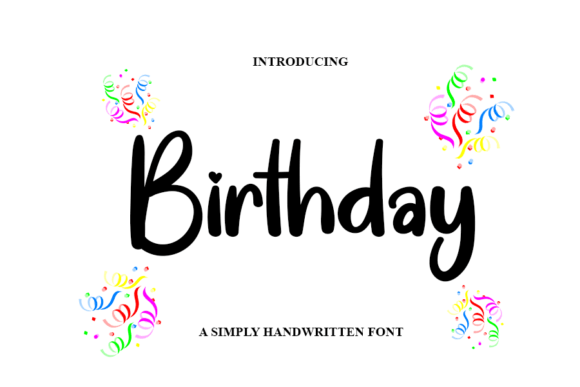
Introducing Birthday Font: The Ultimate Celebration Companion
Are you tired of using the same old fonts for your birthday designs and crafts? Look no further! Birthday Font is here to revolutionize the way you create celebratory content. This cool and modern handwritten font is perfect for crafts, digital design, presentations, and making greeting cards. Its versatility and charm make it an excellent addition to any designer’s or crafter’s toolkit.
The Birth of a New Favorite Font
Birthday Font is more than just a typeface; it’s an experience. Its unique, handwritten style adds a personal touch to any project, making it perfect for special occasions like birthdays, anniversaries, and more. The font’s modern and cool vibe ensures that your designs stand out from the crowd, leaving a lasting impression on your audience.
Endless Possibilities with Birthday Font
One of the best things about Birthday Font is its incredible versatility. Whether you’re a designer, crafter, or DIY enthusiast, this font can be used in a variety of projects, including:
• Crafts: Add a personal touch to your handmade crafts, such as party decorations, gift tags, and DIY cards.
• Digital Design: Use Birthday Font in your digital projects, like social media graphics, blog posts, and email newsletters.
• Presentations: Make your presentations more engaging and celebratory with this unique font.
• Greeting Cards: Create stunning birthday cards, invitations, and thank-you cards that will leave a lasting impression.
Why Choose Birthday Font?
So, what sets Birthday Font apart from other fonts? Here are just a few reasons why it’s about to become your go-to font:
• Unique Style: Birthday Font boasts a distinctive, handwritten style that adds a touch of personality to your designs.
• Easy to Read: The font is clear and legible, making it perfect for both digital and print projects.
• Highly Versatile: Use Birthday Font in a wide range of projects, from crafts to digital design.
• Modern and Cool: The font’s modern vibe ensures that your designs look fresh and contemporary.
Tips and Tricks for Using Birthday Font
To get the most out of Birthday Font, here are a few tips and tricks to keep in mind:
• Experiment with Colors: Pair Birthday Font with bright, bold colors to create stunning designs that pop.
• Mix and Match: Combine Birthday Font with other fonts to create unique and eye-catching typography.
• Pay Attention to Size: Adjust the font size to create visual hierarchy and emphasize important information.
• Add Decorations: Use graphics, illustrations, or textures to add an extra layer of interest to your designs.
Font Name Birthday Font